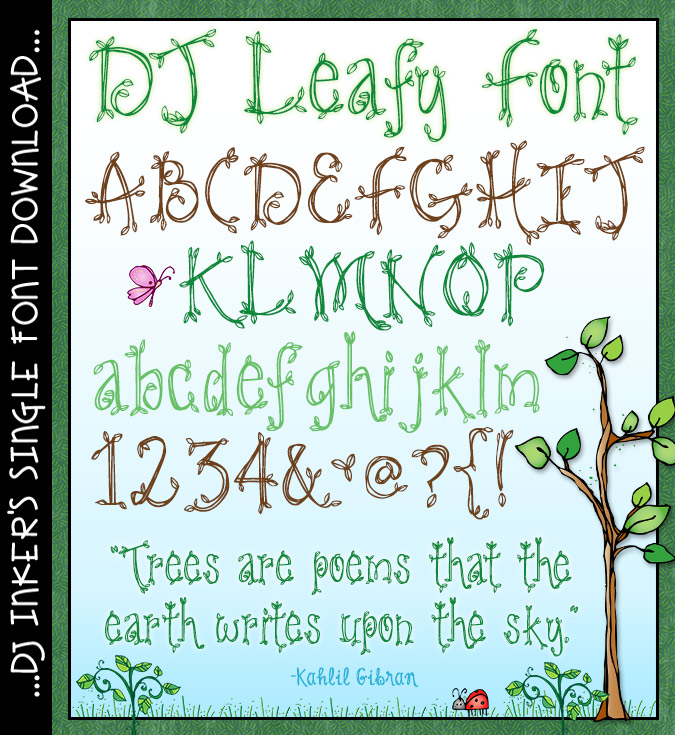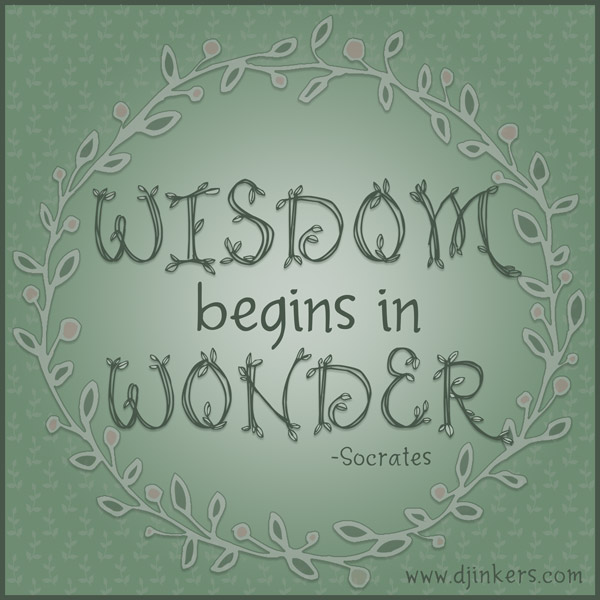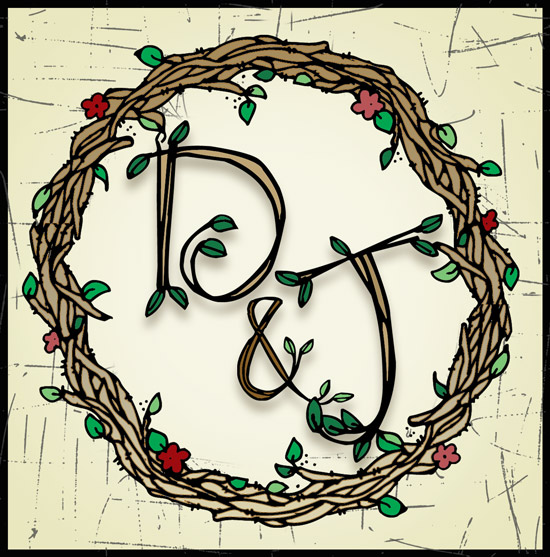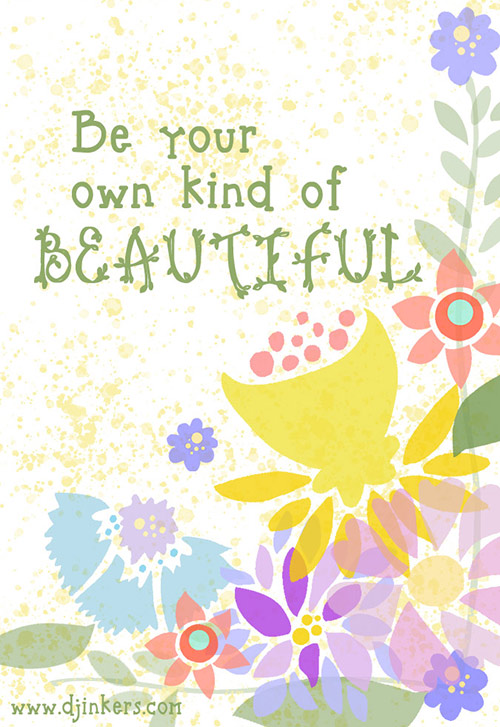
DJ Leafy Font Download
Our fresh DJ Leafy font is perfect
for spring and fall, outdoor adventures, parks, Earth Day, Arbor Day and
tree huggers everywhere. Plant a smile on any project that needs a bit
of life.